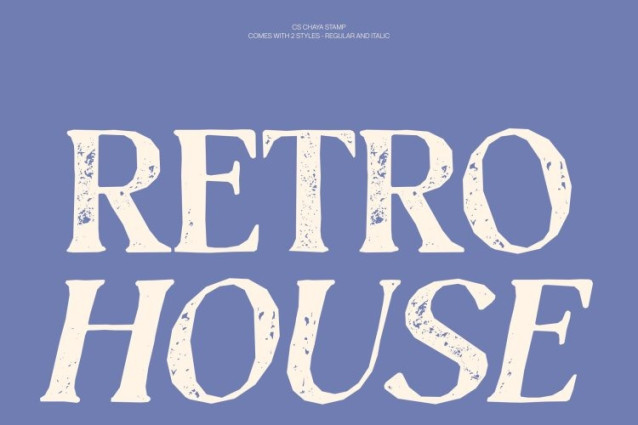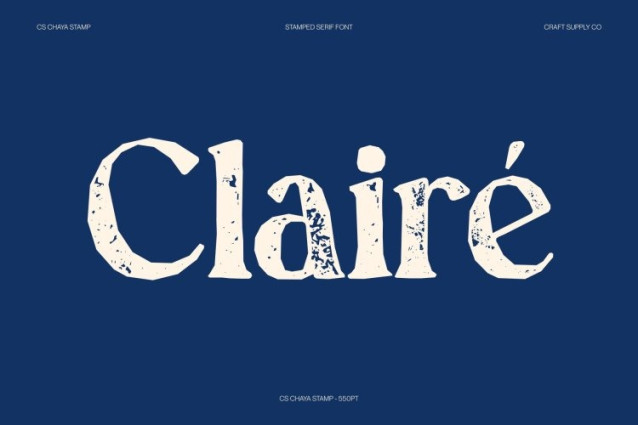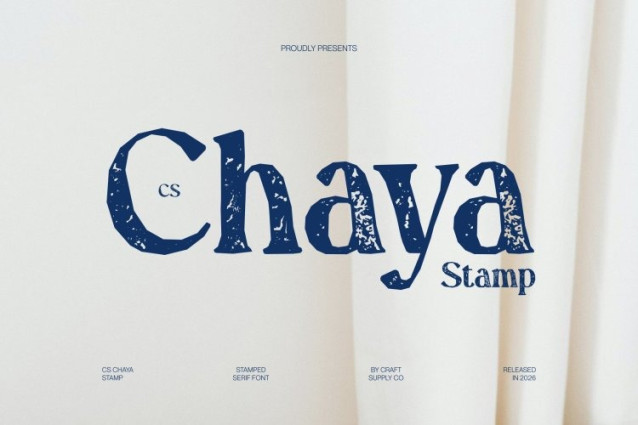
CS Chaya Stamp Font
CS Chaya Stamp Font is a modern serif font designed to express elegance through clean structure and timeless proportions. Its refined letterforms combine classic serif principles with contemporary sensibility, creating a typeface that feels polished, sophisticated, and confidently modern. The addition of a stamp effect introduces a subtle vintage texture, giving the font a distinctive handcrafted character while preserving its refined aesthetic.
High Contrast with Artistic Depth
The high-contrast strokes create a striking visual rhythm that enhances the elegance of each letterform. Thick and thin transitions bring drama and clarity, while the stamp texture adds gentle imperfections and ink-like details reminiscent of traditional printing techniques. This fusion of precision and texture creates a visually rich typographic experience.
Timeless Style with Expressive Character
This font balances modern design and timeless beauty. Its elegant curves and sharp transitions communicate sophistication and luxury, while the textured finish adds warmth and personality. The result is a typeface that feels both stylish and enduring, suitable for designs that aim for refined visual impact.
Perfect for Fashion, Editorial, and Luxury Branding
Ideal for fashion branding, editorial layouts, posters, and premium packaging, this font excels in headlines, titles, and standout typography. Its high-contrast elegance combined with vintage stamp texture enhances visual storytelling, delivering a design presence that feels luxurious, artistic, and memorable.